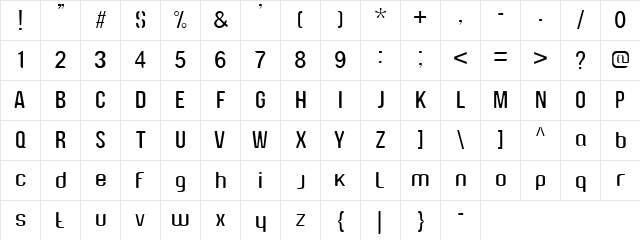
Zeynalabdin Regular
| Designer | Mahir Huseynov |
Design Context for Zeynalabdin Typeface
Zeynalabdin is a composed and adaptable typeface that performs quietly and consistently across a wide range of design contexts.